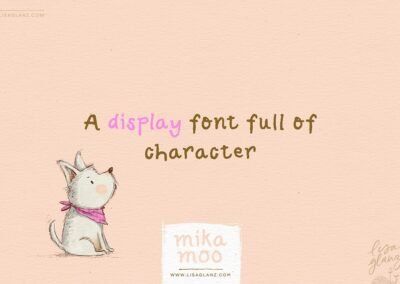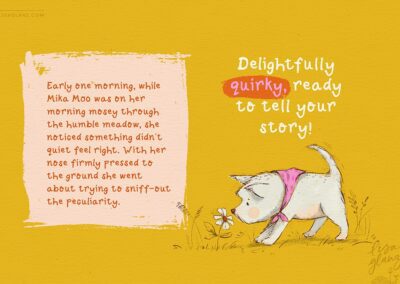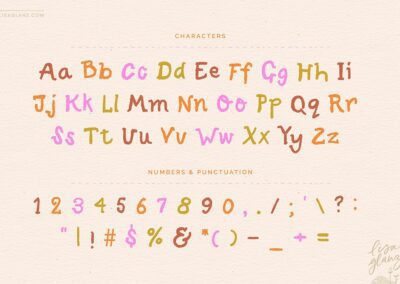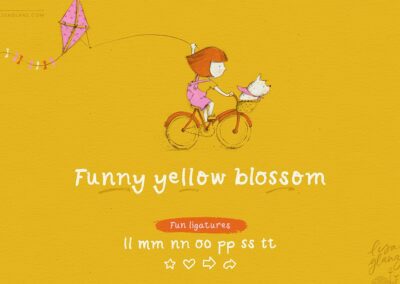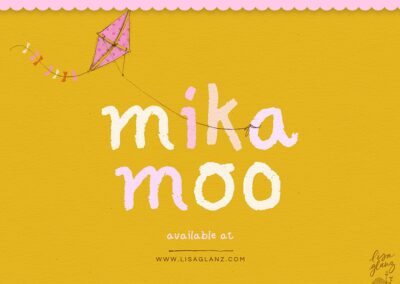
This is Mika Moo, a delightfully quirky font full of character!
A playful hand lettered font ready to tell your story. Filled with quirky imperfections perfect for adding a whimsical touch to your creative projects.
The font includes standard alphabet, it does not include international characters